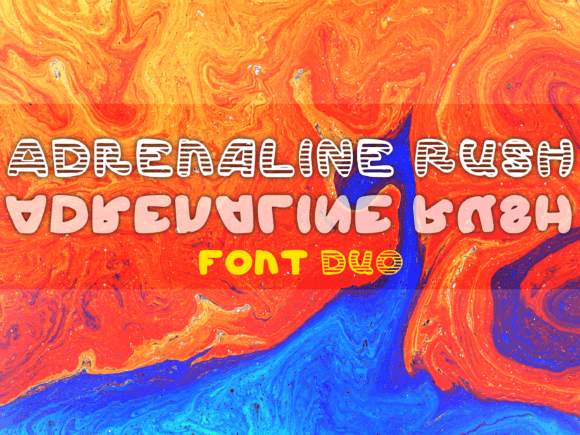
The Ultimate Adrenaline Rush: Unleashing the Power of a Display Font Duo
Ah, the thrill of the design process! I still remember the rush of excitement when working on a project that required a bold, eye-catching font. My client wanted a logo that would make their brand stand out, but I was struggling to find the perfect match. That’s when I stumbled upon the Adrenaline Rush font duo, and it completely transformed my design. In this article, I’ll share my experience with this amazing font, its features, and how to make the most of it.
First Impressions: A Personal Story
I was working late one evening, sipping on a cold coffee, trying to meet a tight deadline. My design was looking flat, and I needed something to make it pop. That’s when I discovered Adrenaline Rush, a display font duo that caught my attention with its solid and striped styles. I was immediately drawn to its unique combination and couldn’t wait to experiment with it.
So, what do I love about Adrenaline Rush? 🤔 Here are a few things that make it stand out:
- ✨ Unique Style Combination: The duo offers a solid and a striped style, making it versatile for various design projects.
- ✅ Ease of Use: The font is easy to read, even in larger sizes, making it perfect for headlines and titles.
- 💥 Attention-Grabbing: The bold and striped styles are sure to grab attention and make your design stand out.
While Adrenaline Rush is an excellent font, there are a few minor quirks to consider:
- ⚠️ Limited Use Cases: Due to its bold nature, it might not be suitable for body text or smaller sizes.
- 🤔 Glyph Limitations: Some users might find the glyph selection limited, but it still offers a good range of characters.
The Designer Inspiration Behind Adrenaline Rush
The story behind Adrenaline Rush is one of creativity and experimentation. The designer aimed to create a font that would evoke the feeling of an adrenaline rush – bold, exciting, and attention-grabbing. By combining a solid and striped style, they achieved a unique look that’s perfect for making a statement.
| Font Name | Adrenaline Rush Font |
| Author | The Tenacious Type Studio |
| What type of projects is Adrenaline Rush best suited for? | Adrenaline Rush is ideal for titles, headings, logos, and any project that requires a bold and attention-grabbing font. |
And that’s it! Adrenaline Rush is a fantastic font duo that’s sure to add a boost of energy to your designs. With its unique style combination, ease of use, and attention-grabbing features, it’s perfect for designers, crafters, and creative hobbyists looking to make a statement.